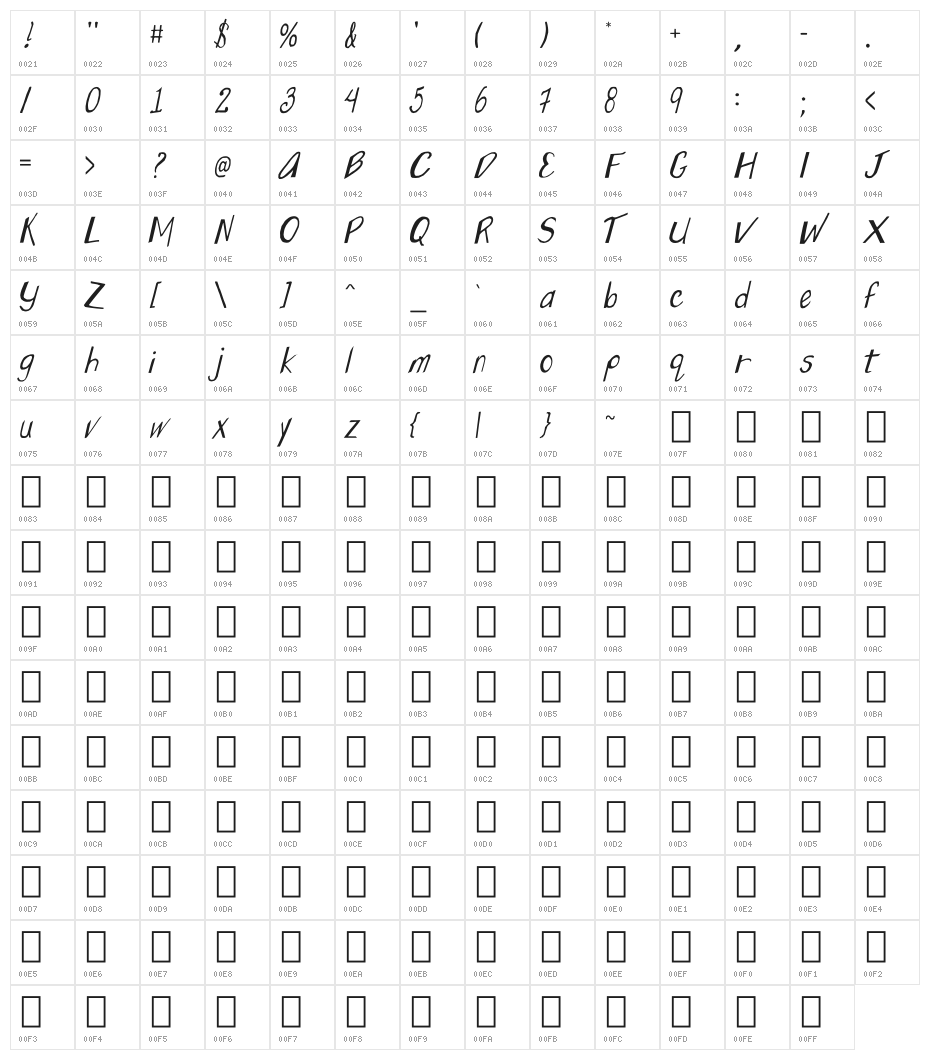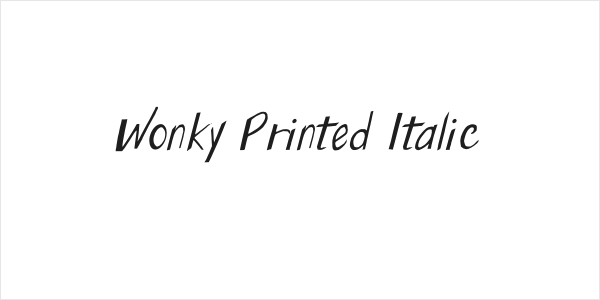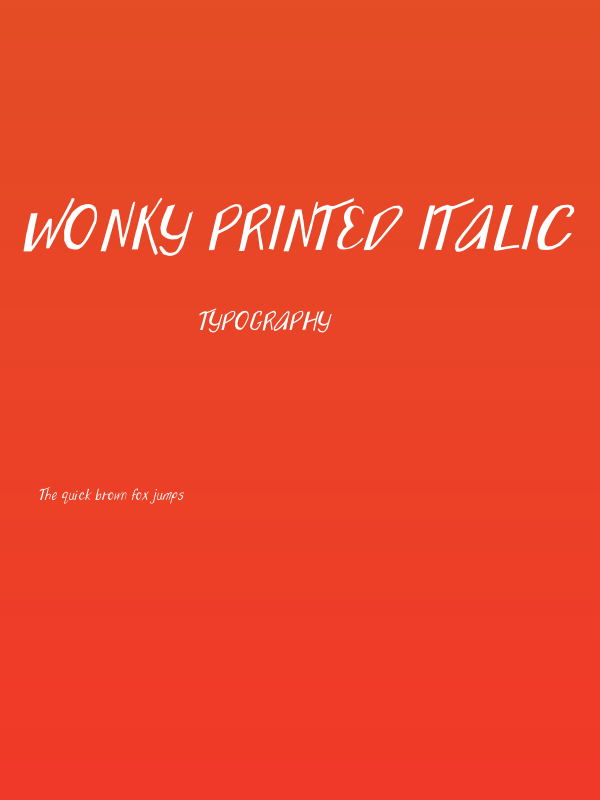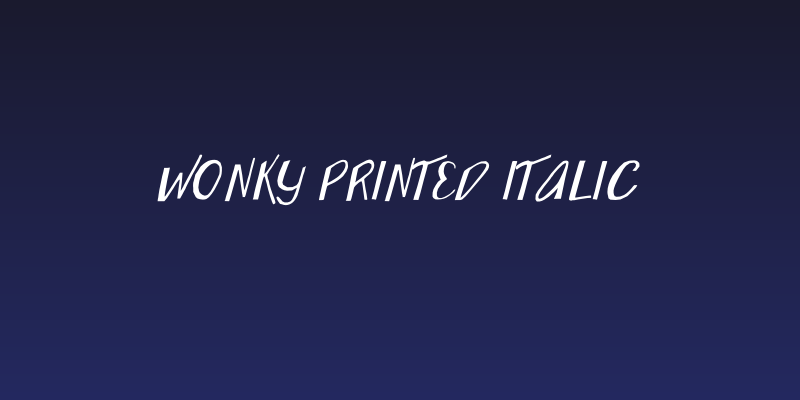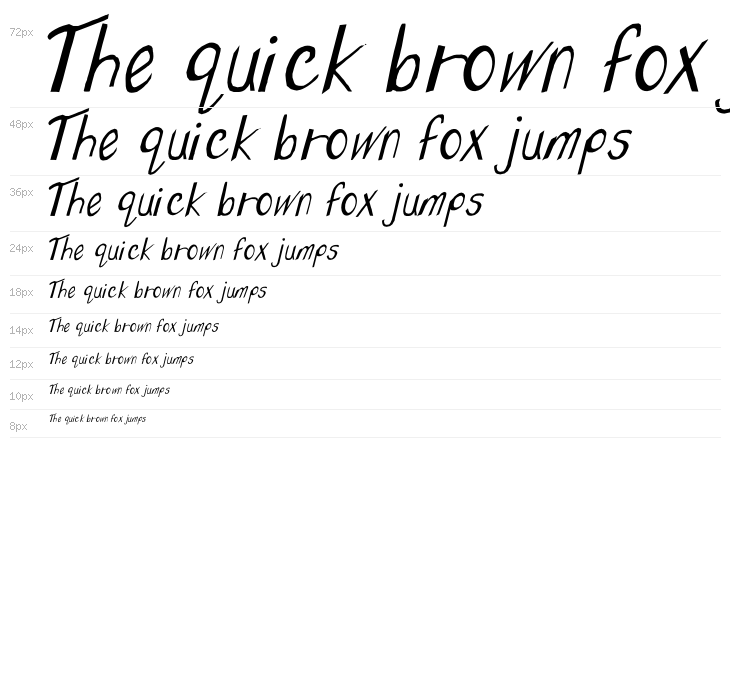
Wonky Printed Italic Font
Wonky Printed Italic Description
This font features a playful and dynamic style with a handwritten appearance. The letters are slanted, giving an italicized look, and exhibit a slightly uneven baseline, adding to its casual and informal charm. The strokes are varied in thickness, providing a medium contrast that enhances its lively character. The uppercase and lowercase letters maintain a consistent style, with elongated and slightly exaggerated forms, particularly noticeable in letters like 'A', 'R', and 'y'. The numerals and special characters follow the same whimsical design, making the font suitable for creative and expressive projects.
| Proposed Projects | Ideal for greeting cards, invitations, playful branding, and creative posters. |